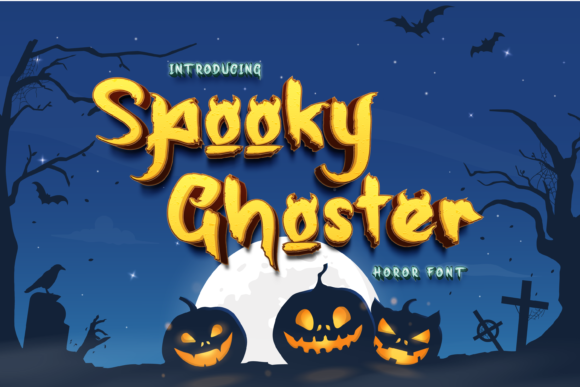
Embrace the Haunting Spirit of Halloween with Spooky Ghoster Font
Adorned with an aura of eerie elegance, Spooky Ghoster Font is a creation beyond the realm of ordinary typographic designs. Immerse yourself in the thrilling mastery of this display font, where each letterform seems to dance with a spectral allure. Spooky Ghoster Font is the ultimate companion for conjuring a spellbinding atmosphere in your creative projects.
Unleash the Magic of Halloween with Spooky Ghoster Font
Take your Halloween designs to spine-chilling new heights with Spooky Ghoster Font. This font is a haunting masterpiece, meticulously crafted to evoke the spooky spirit of the holiday. With its thick, phantom-like letterforms, Spooky Ghoster Font will cast an enchanting spell on your posters, invitations, and social media graphics.
Capture the Essence of Horror with Spooky Ghoster Font
In the realm of horror, Spooky Ghoster Font reigns supreme. Its sinister curves and eerie edges evoke the chilling essence of classic horror tales. Unleash your creativity and let Spooky Ghoster Font breathe life into your horror-themed projects. Create hauntingly beautiful posters, book covers, and movie titles that will send shivers down the spines of your audience.
Dare to Be Different with Spooky Ghoster Font
Spooky Ghoster Font is not just a font; it's a gateway to a world of dark enchantment. Break free from the mundane and embrace the extraordinary with this font. Its unique, eye-catching design will set your projects apart from the rest, leaving a lasting impression on all who encounter it.
Unlock Your Creativity with Spooky Ghoster Font
With Spooky Ghoster Font, the only limit is your imagination. Let your creativity run wild as you explore the endless possibilities this font offers. Craft spine-tingling logos, design chilling website headers, or create social media graphics that will send shivers down the spines of your followers.